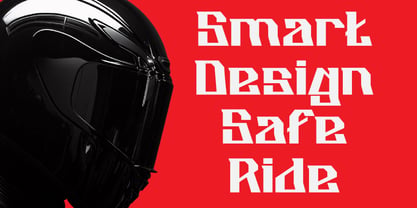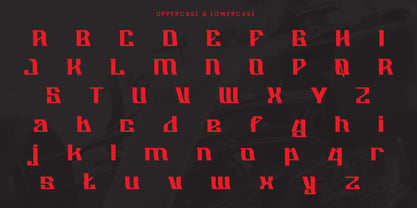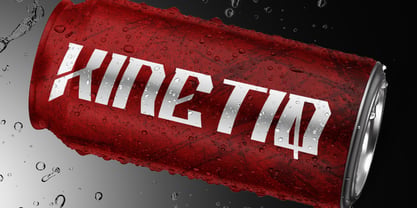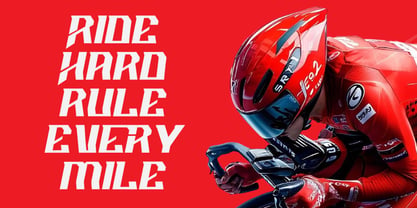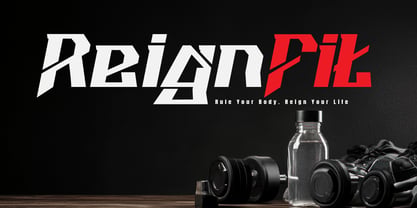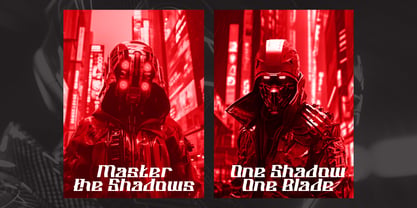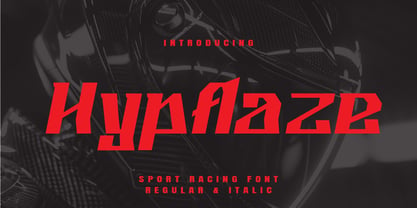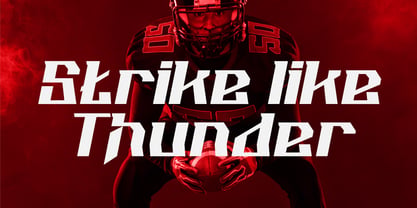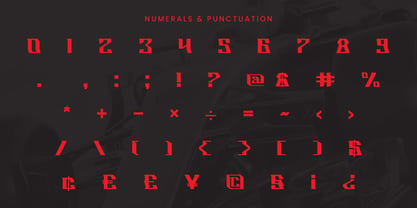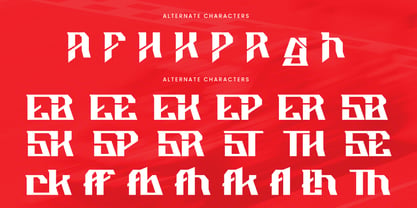
Hypflaze
by Rvandtype
The Hypflaze Font Family was designed by Randi Irvan and published by Rvandtype. Hypflaze contains 2 styles and family package options. More about this family
Hypflaze is a sport racing display font built with a bold futuristic and cyberpunk aesthetic, crafted to express pure speed, power, and high-intensity energy. Its sharp, angular letterforms and dynamic structure create a strong visual impact, making it perfect for racing event posters, esports logos, automotive branding, sports apparel, tech campaigns, energy drink advertisements, and sci-fi or military-inspired designs. Equipped with uppercase, lowercase, ligatures, alternate characters, and multilingual support, Hypflaze delivers versatility and performance for modern designers who want their typography to feel fast, aggressive, and unstoppable.
Designers: Randi Irvan
Foundry: Rvandtype